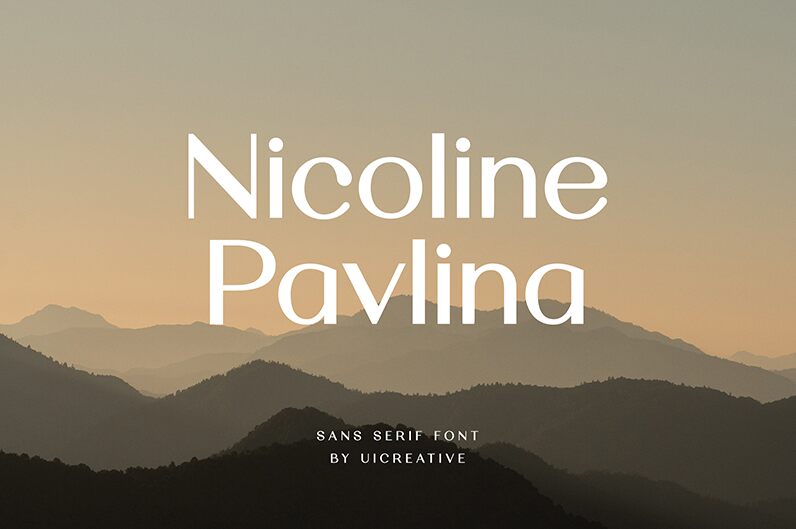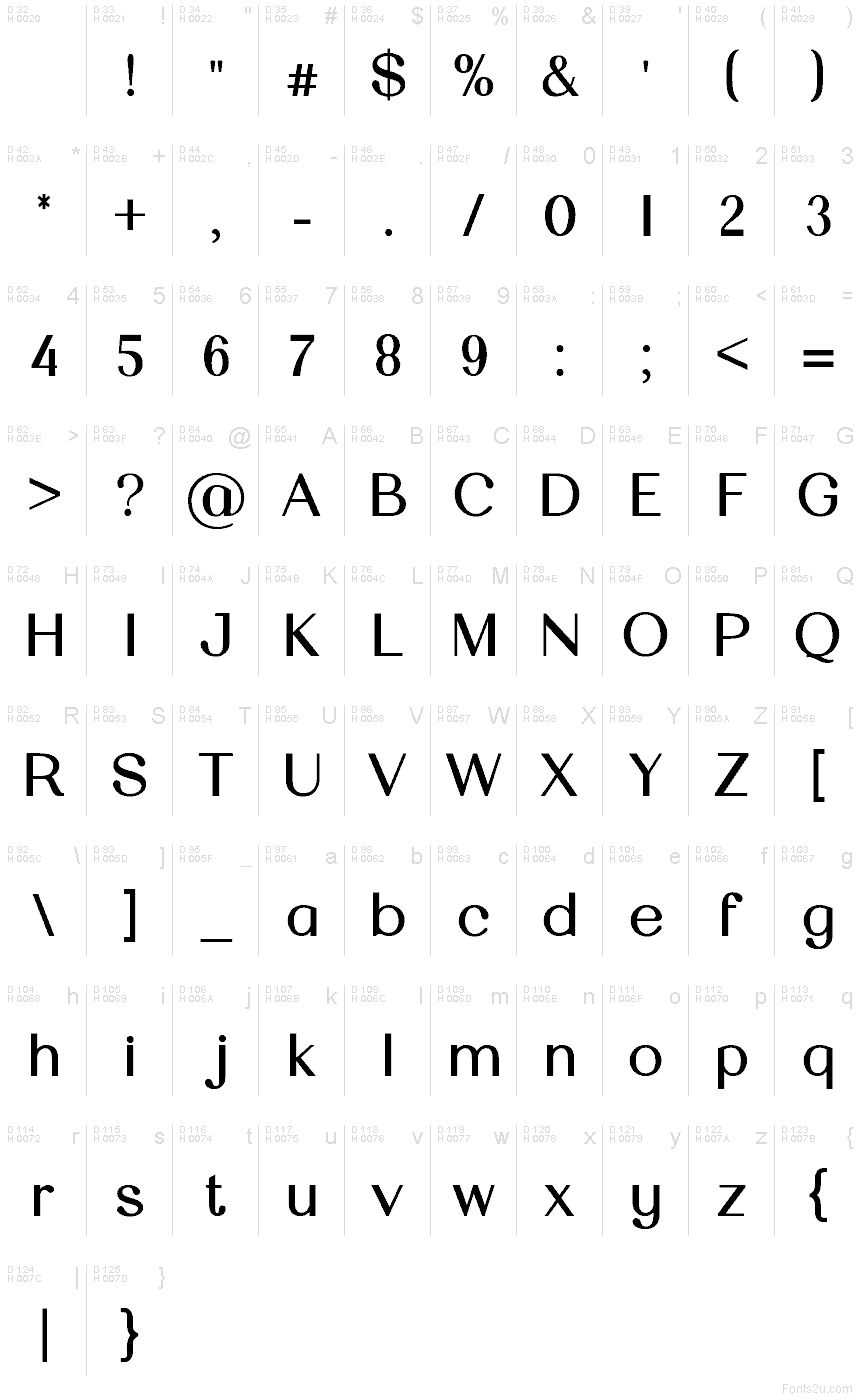
NicolinePavlina
Nicoline Pavlina font by UI Creative is a free elegant sans serif typeface with a quietly luxurious feel. Its tall, slender letters, gentle curves, and airy spacing give every word a boutique-label quality, like ink stretched into fine black threads. There’s a subtle rhythm to the forms that feels both modern and timeless, making it a natural choice when you want sophistication without stiffness.
Using Nicoline Pavlina, you can elevate fashion branding, beauty packaging, editorial layouts, social media graphics, portfolio sites, and boutique logos with a single consistent voice. This free font shines on large headlines and wordmarks where its slim shapes can breathe; pair it with a simple geometric sans for smaller body text to keep things readable. Set it with generous tracking and plenty of white space, and it instantly looks like high-end art direction.